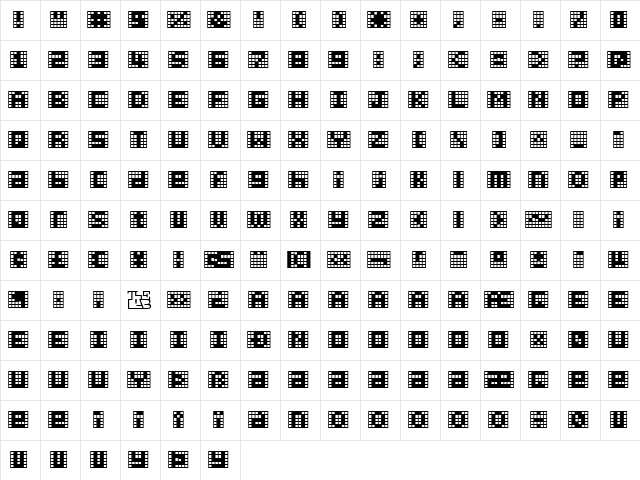
Pica Hole - MRT Regular
Design Context for Pica Hole - MRT Typeface
Pica Hole - MRT is a composed and adaptable typeface that performs quietly and consistently across a wide range of design contexts.
Pro Tip: Use Pica Hole - MRT in both headline and body roles to test its range before committing to a single application.